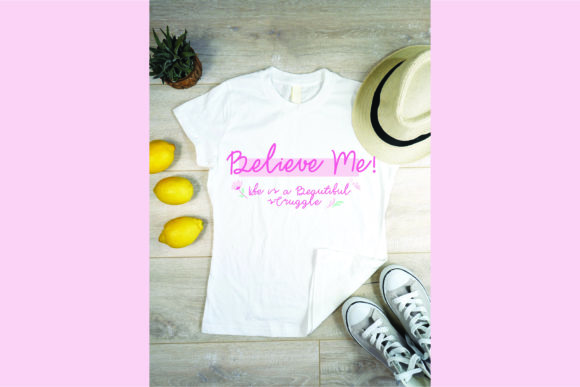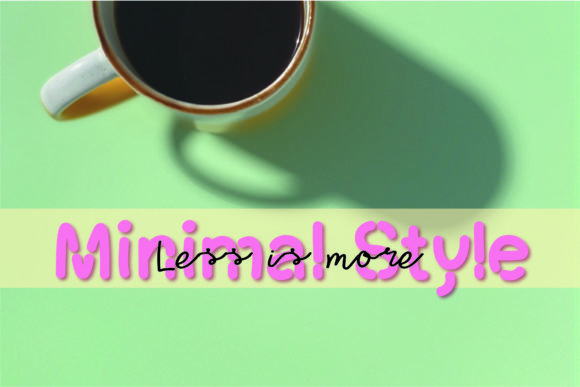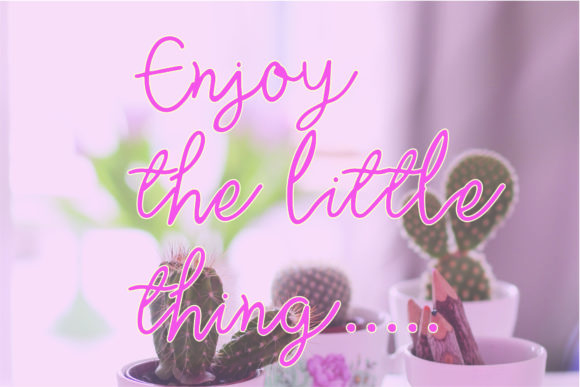
About Minimalist Font
Minimalist is a charming handwritten font that brings a touch of sweetness and vibrancy to your designs. With its playful and lively style, this font is perfect for adding a pop of joy and liveliness to your creative projects.
The simplicity and clean lines of Minimalist make it an excellent choice for a wide range of design applications. Whether you’re working on greeting cards, social media graphics, branding materials, or any other project, Minimalist will infuse your designs with a delightful and carefree vibe.
The handwritten nature of Minimalist adds a personal and authentic touch to your text. Each letter is crafted with love and attention to detail, resulting in a font that feels warm and inviting. Its natural flow and casual appearance give your designs a relaxed and approachable feel.
The beauty of Minimalist lies in its versatility. It can be used in various design styles, from whimsical and playful to modern and minimalistic. The font’s ability to adapt to different design contexts makes it a valuable asset in your font library.
Whether you’re creating a logo, designing invitations, crafting social media posts, or adding a touch of charm to your website, Minimalist is sure to captivate your audience. Its cute and lively style brings a sense of positivity and energy to your designs, making them visually appealing and engaging.
With Minimalist, you have the freedom to experiment and explore different design ideas. Combine it with vibrant colors, playful illustrations, or bold typography to create eye-catching and memorable compositions. Let Minimalist be the spark that brightens up your designs and brings them to life.
In conclusion, Minimalist is a delightful handwritten font that adds a touch of sweetness and liveliness to your designs. Its cute and full-of-life style is perfect for bringing joy and vibrancy to a wide range of creative projects. Embrace the charm of Minimalist and let it infuse your designs with its playful and captivating energy.